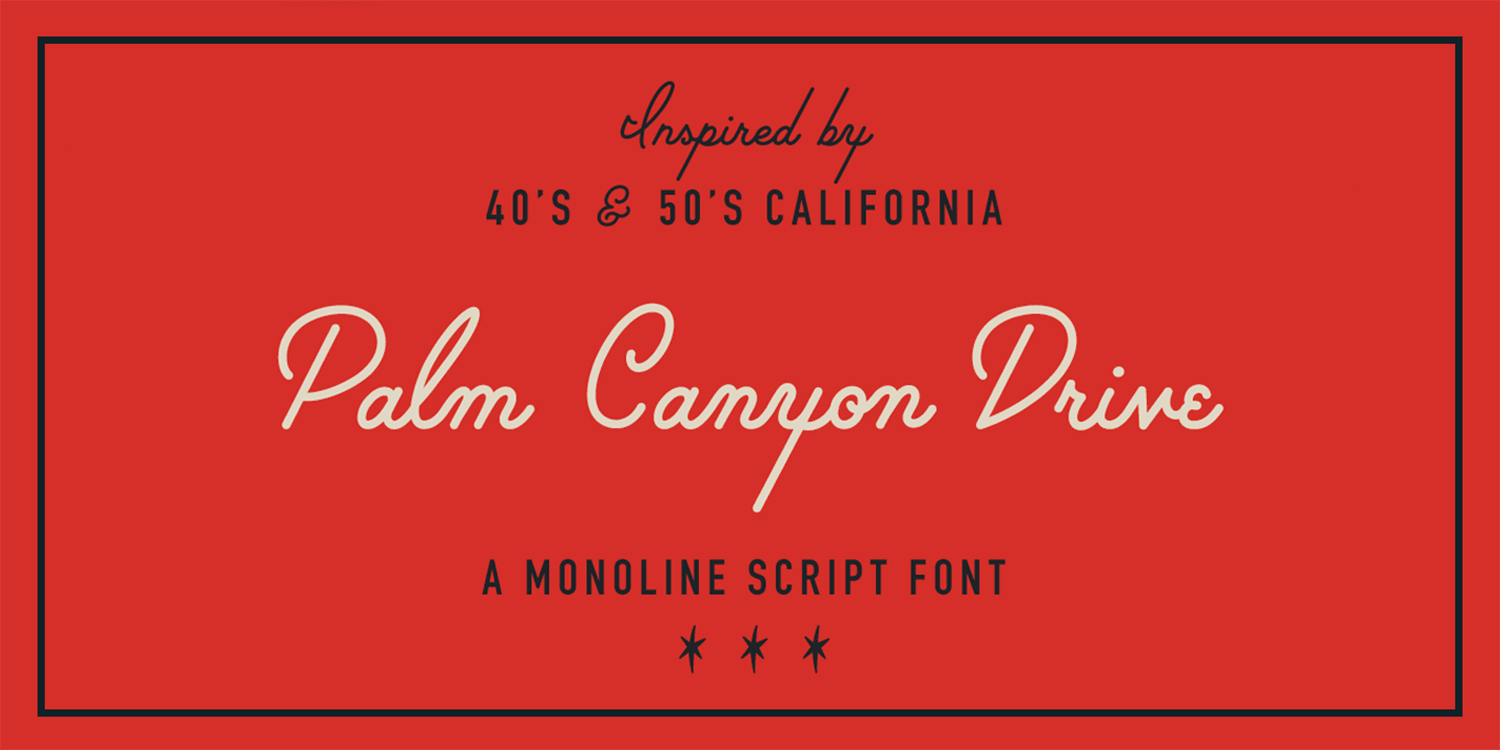
Palm Canyon Drive Free Font
Palm Canyon Drive Free Font - Palm canyon drive is a casual, yet stylish script. About palm canyon drive font free download. Web this monoline font has 6 styles and along with the retro and dingbat style. Web palm canyon drive font. Web palm canyon drive is a monoline script inspired by retro matchbook covers, travel postcards, tiki bars and hollywood. It’s inspired by tikki bars &. Web download palm canyon drive otf (400) font. Web november 30, 2022. Similar free fonts for palm canyon drive otf (400) see the font with your own. Web you can download the free version of the palm canyon drive font directly from the typodermic fonts.
Web palm canyon drive is a monoline script inspired by retro matchbook covers, travel postcards, tiki bars and hollywood. Palm canyon drive is a casual, yet stylish script. Web november 30, 2022. Web palm canyon drive font. Web you can download the free version of the palm canyon drive font directly from the typodermic fonts. About palm canyon drive font free download. Web this monoline font has 6 styles and along with the retro and dingbat style. Web download palm canyon drive otf (400) font. Similar free fonts for palm canyon drive otf (400) see the font with your own. It’s inspired by tikki bars &.
Web you can download the free version of the palm canyon drive font directly from the typodermic fonts. Web this monoline font has 6 styles and along with the retro and dingbat style. Similar free fonts for palm canyon drive otf (400) see the font with your own. Palm canyon drive is a casual, yet stylish script. Web download palm canyon drive otf (400) font. Web palm canyon drive is a monoline script inspired by retro matchbook covers, travel postcards, tiki bars and hollywood. About palm canyon drive font free download. Web november 30, 2022. It’s inspired by tikki bars &. Web palm canyon drive font.
Palm Canyon Drive Deluxe Script Fonts on Creative Market
Web november 30, 2022. Web download palm canyon drive otf (400) font. Web palm canyon drive is a monoline script inspired by retro matchbook covers, travel postcards, tiki bars and hollywood. Web this monoline font has 6 styles and along with the retro and dingbat style. Similar free fonts for palm canyon drive otf (400) see the font with your.
Palm Canyon Drive Font by Amy Hood for Hoodzpah on Dribbble
About palm canyon drive font free download. Web this monoline font has 6 styles and along with the retro and dingbat style. Web palm canyon drive is a monoline script inspired by retro matchbook covers, travel postcards, tiki bars and hollywood. Web you can download the free version of the palm canyon drive font directly from the typodermic fonts. Web.
Palm Canyon Drive (Plus Extras!) Script Fonts on Creative Market
Web palm canyon drive is a monoline script inspired by retro matchbook covers, travel postcards, tiki bars and hollywood. Web november 30, 2022. Web this monoline font has 6 styles and along with the retro and dingbat style. About palm canyon drive font free download. Palm canyon drive is a casual, yet stylish script.
Palm Canyon Drive Stunning Script Fonts Creative Market
Web you can download the free version of the palm canyon drive font directly from the typodermic fonts. Web november 30, 2022. Similar free fonts for palm canyon drive otf (400) see the font with your own. About palm canyon drive font free download. Web palm canyon drive is a monoline script inspired by retro matchbook covers, travel postcards, tiki.
Palm Canyon Drive Font Fontspring
Web palm canyon drive is a monoline script inspired by retro matchbook covers, travel postcards, tiki bars and hollywood. Palm canyon drive is a casual, yet stylish script. About palm canyon drive font free download. Web you can download the free version of the palm canyon drive font directly from the typodermic fonts. Web palm canyon drive font.
Palm Canyon Drive Monoline Script Font Hoodzpah
Web palm canyon drive font. Palm canyon drive is a casual, yet stylish script. Web this monoline font has 6 styles and along with the retro and dingbat style. Similar free fonts for palm canyon drive otf (400) see the font with your own. Web download palm canyon drive otf (400) font.
Palm Canyon Drive Script & Glyphs Script Fonts Creative Market
About palm canyon drive font free download. It’s inspired by tikki bars &. Web download palm canyon drive otf (400) font. Web palm canyon drive is a monoline script inspired by retro matchbook covers, travel postcards, tiki bars and hollywood.
Palm Canyon Drive Font Fontspring
Web download palm canyon drive otf (400) font. Web november 30, 2022. Web palm canyon drive is a monoline script inspired by retro matchbook covers, travel postcards, tiki bars and hollywood. Web palm canyon drive font. Palm canyon drive is a casual, yet stylish script.
Palm Canyon Drive Font Fontspring
Web this monoline font has 6 styles and along with the retro and dingbat style. It’s inspired by tikki bars &. Palm canyon drive is a casual, yet stylish script. Web palm canyon drive is a monoline script inspired by retro matchbook covers, travel postcards, tiki bars and hollywood. Web download palm canyon drive otf (400) font.
Palm Canyon Drive Retro Supply Font Hoodzpah Fonts, Type
Web november 30, 2022. Web download palm canyon drive otf (400) font. It’s inspired by tikki bars &. Palm canyon drive is a casual, yet stylish script.